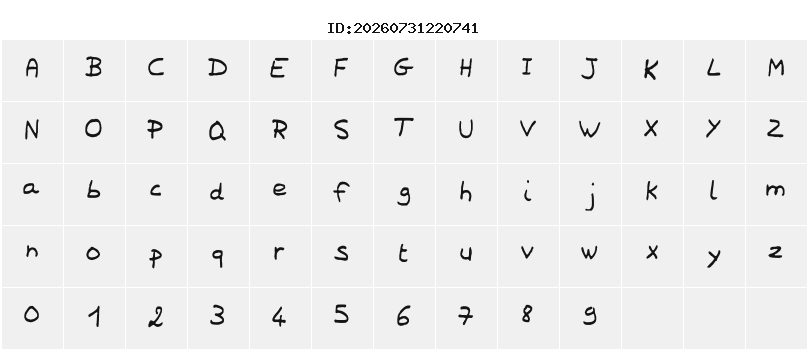
• Font Name: LaureneScriptFont
About LaureneScriptFont.ttf
LaureneScriptFont.ttf is a modern, elegant sans-serif font designed for ultimate readability and visual harmony. Perfect for branding, headlines, web design, and print materials.